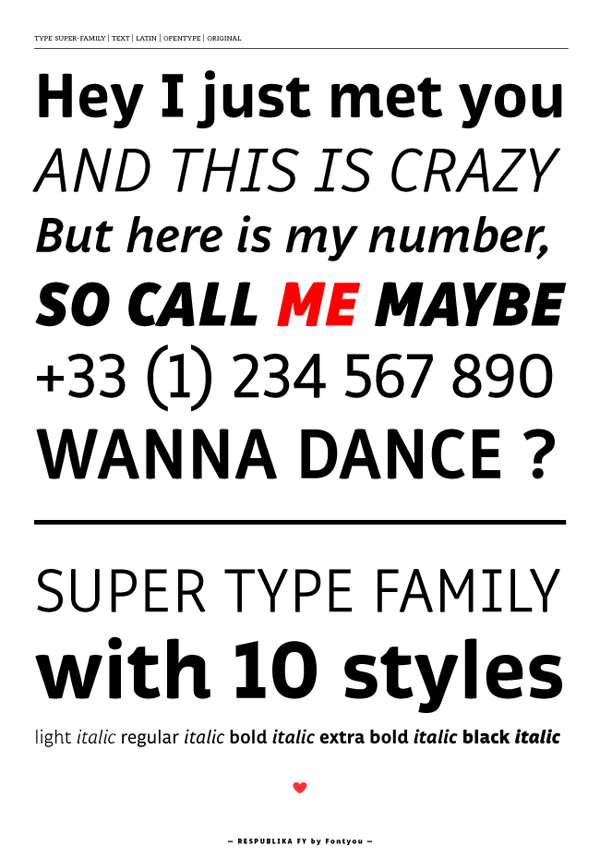
This is something for bargain hunters and font lovers. Respublika FY from FontYou is a versatile font family consisting of 10 unique styles ranging from subtle to powerful and robust versions. This balanced humanist sans serif font is suitable for a wide variety of typographic projects.